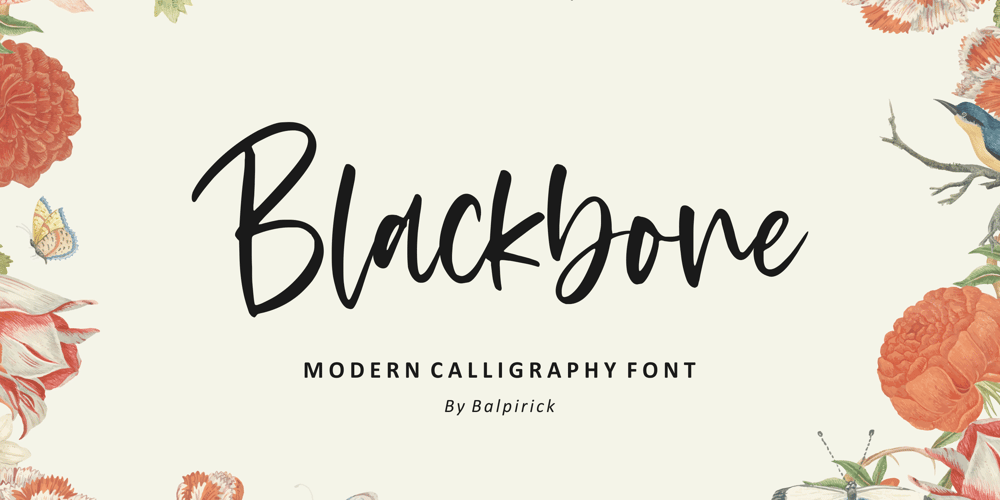
Blackbone
Blackbone font
Blackbone Font Family was designed by Restu Angga and published by Balpirick. Blackbone contains 1 styles and family package options. Blackbone is a Modern Calligraphy Font.Blackbone is a lovely and delicate script font that exudes elegance and class. This font was particularly crafted for those who need a beautiful and refreshing look to their designs. Blackbone also multilingual support.Enjoy the font, feel free to comment or feedback, send me PM or email.Thank you!